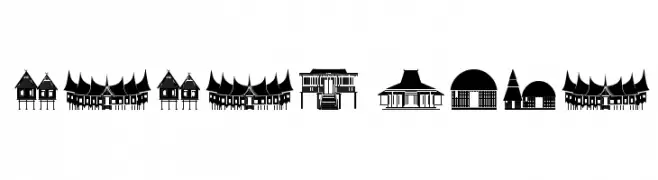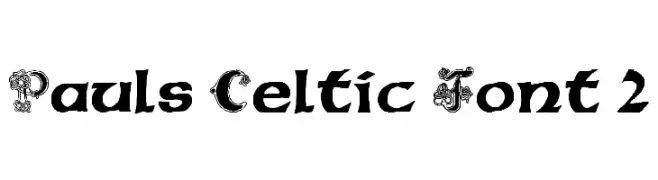
A decorative font featuring intricate Mesoamerican-inspired glyphs.
A decorative font inspired by Mesoamerican symbols, featuring intricate and artistic glyphs.
A decorative font inspired by Mesoamerican art, featuring intricate and bold glyphs.
A Celtic-inspired font with ornate uppercase and bold lowercase letters.
Architectural silhouette display font with building-themed glyphs.
A bold, mosaic-patterned font with a geometric and decorative style.
A playful, bold font with a hand-drawn, Japanese calligraphy-inspired style.
A playful, dot-based decorative font inspired by Japanese Hiragana.